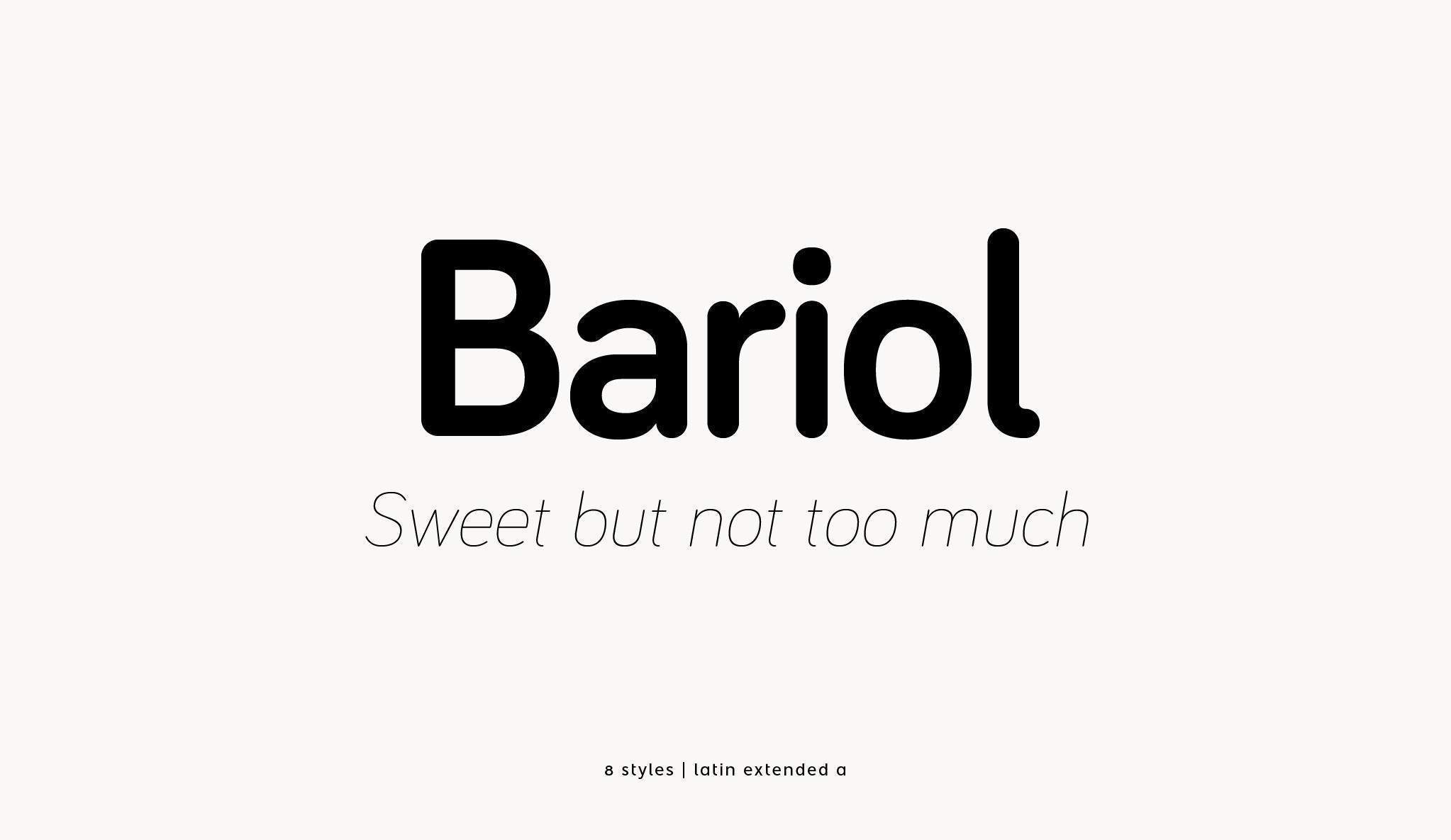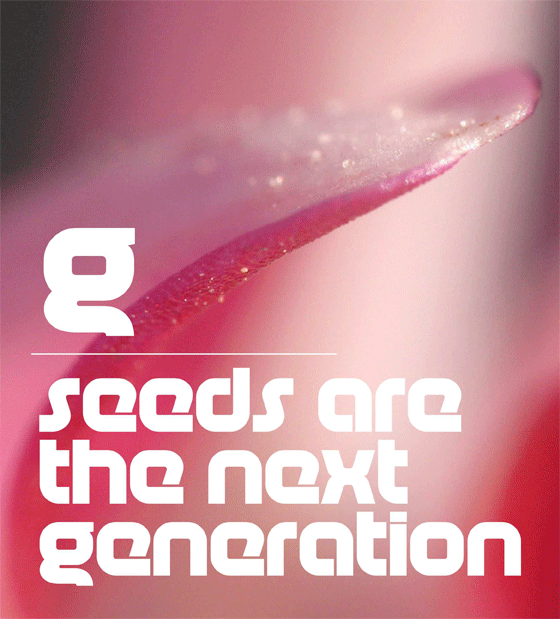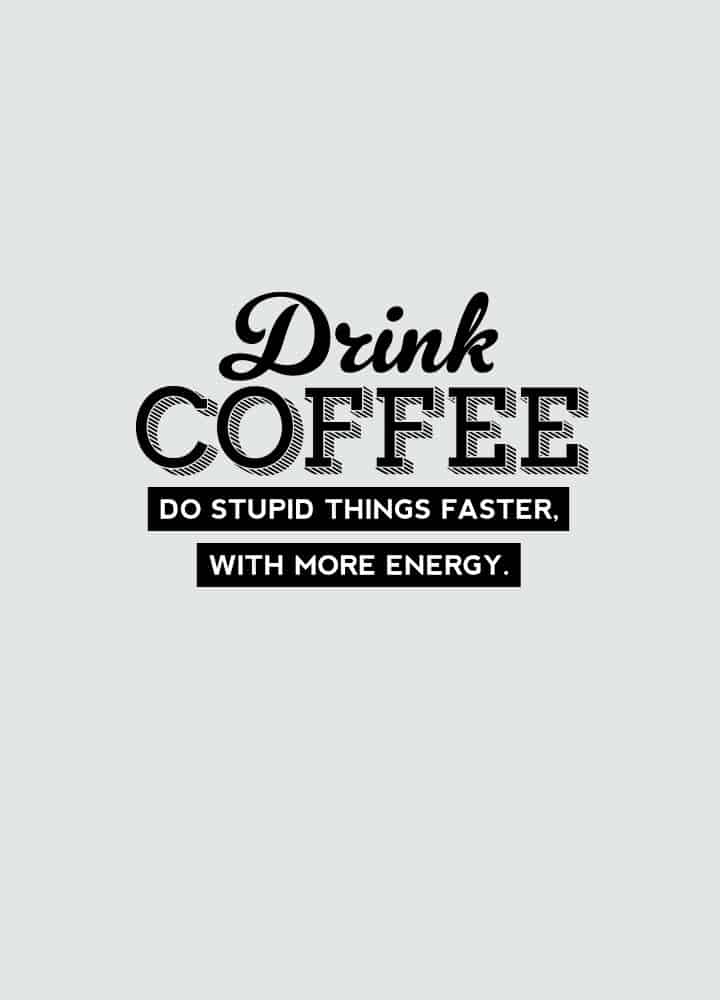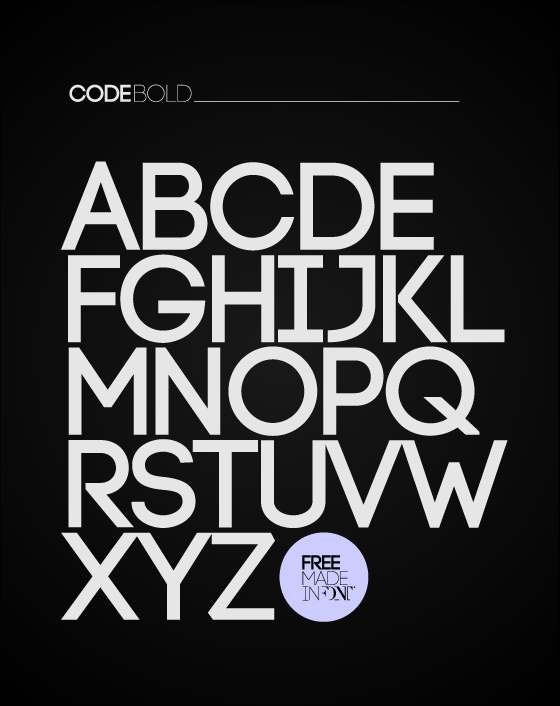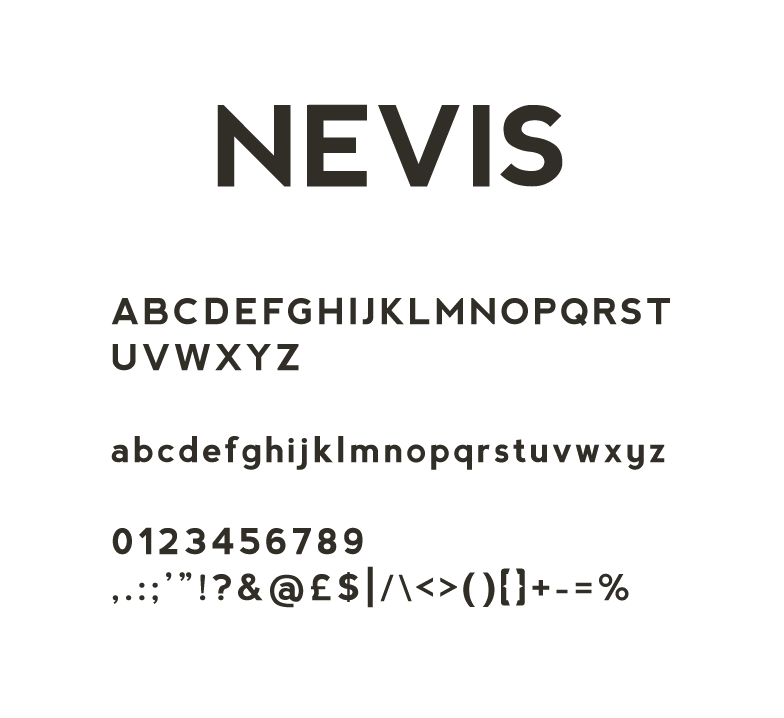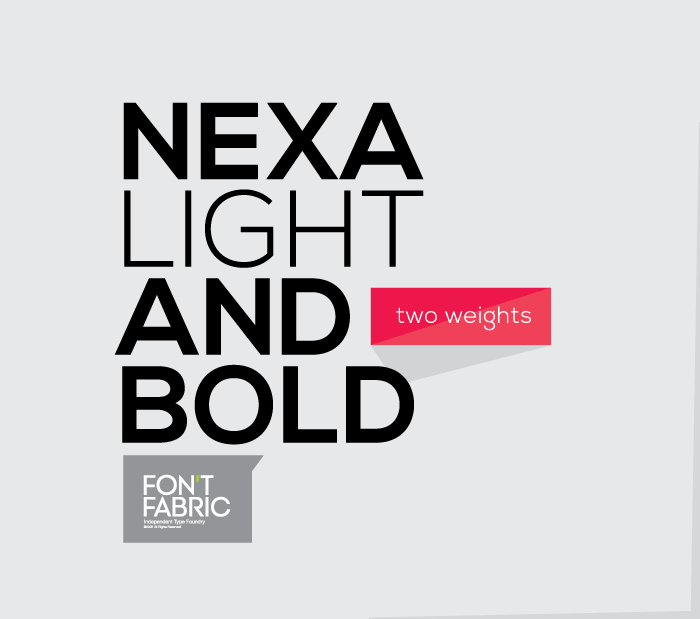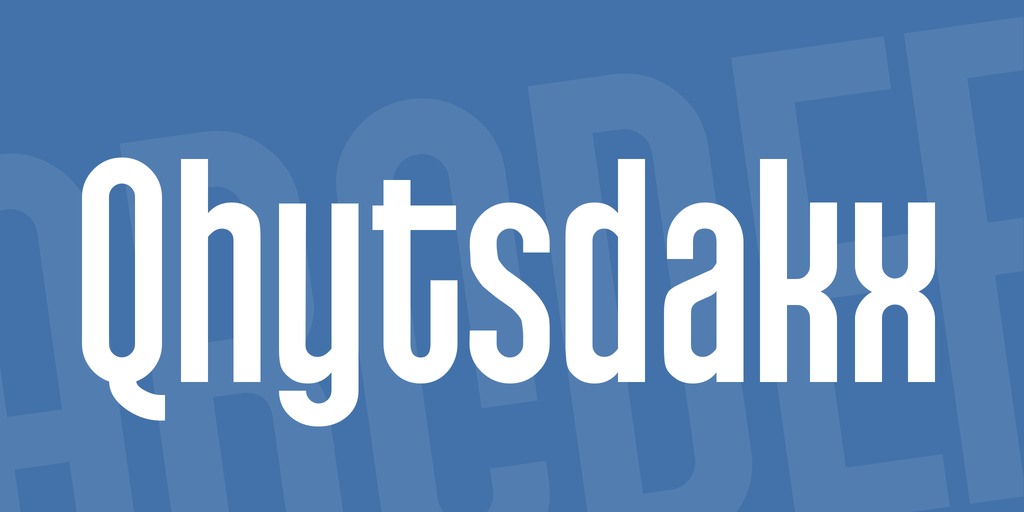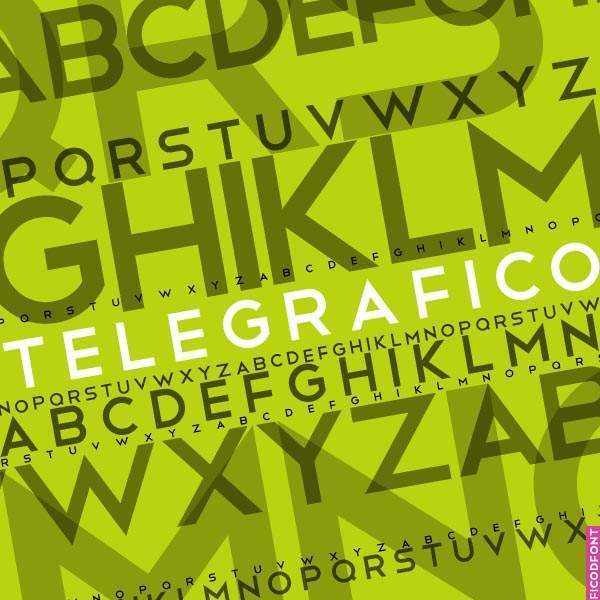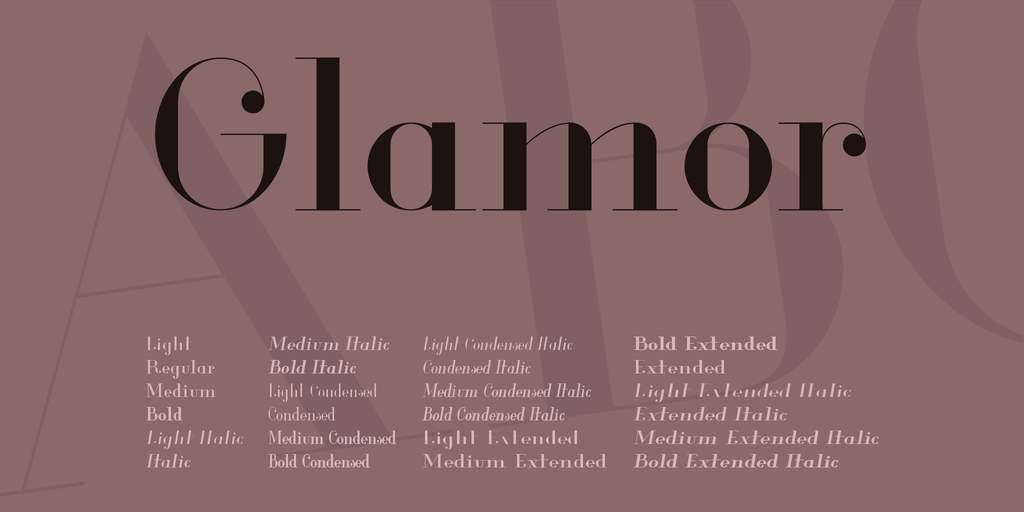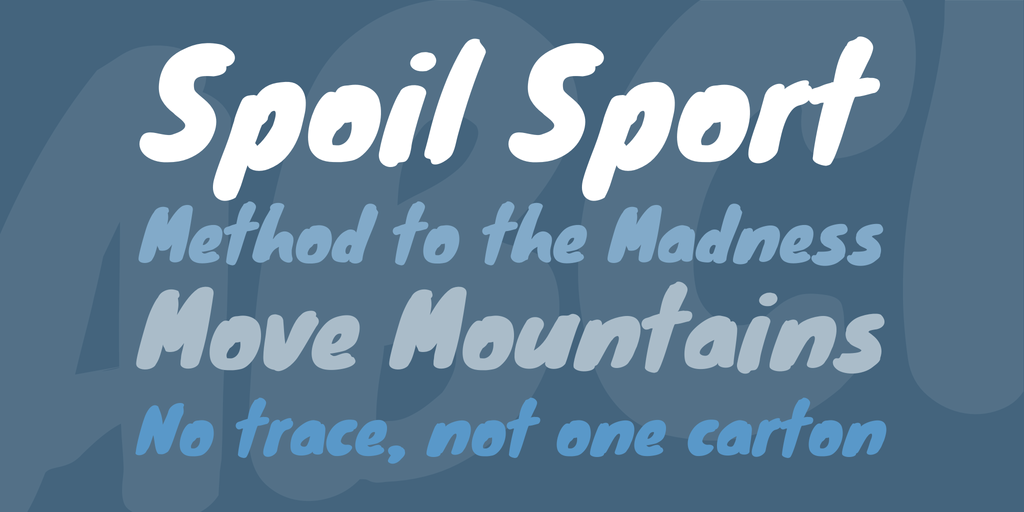
45 Free Headline Fonts to Make Your Designs Stand Out
Are you willing to take the risk with a headline that doesn’t grab attention instantly? Weak headlines can significantly reduce the impact of your design — no matter how great the rest of the content is.
A poorly chosen headline font can make even the best design go unnoticed. In today’s competitive visual landscape, your headline needs to work hard to capture attention and communicate your message clearly.
Ask yourself:
– Does my headline stand out?
– Is my font choice bold, readable, and aligned with the overall tone?
Choosing the right font for your headings isn’t just about style — it’s about getting noticed.
But let’s be honest — finding the perfect headline font isn’t easy.
That’s why we’ve put together a handpicked collection of the most powerful and eye-catching free fonts for headlines. Each font in this list is designed to elevate your creative work and grab your audience’s attention — and best of all, they’re absolutely FREE to download and use.
1. Adam.CG Pro font
Adam is a sans serif font inspired by Futura, great for eye-catching headlines. Its clean appearance, make it great, decorative, sophisticated subheadings.
2. Zebrazil Font
Zebrazil is a beautiful, delicate font. The high lines, subtle accents, and thin serifs give it an elegant, but also modern look. It’s really eye-catching, and great for more upscale, extravagant work.
3. Anson Font
Anson, inspired by the British twin-engine Avro Anson, is a sans serif typeface great for drawing attention to headlines. It is clean, but has a subtle softness in the roundness of some letters, and the cutouts of lowercase letters replicate a subtle serif. This allows Anson to fulfill the role of a sans serif typeface, but with a little more personality.
4. Promesh Font
Promesh is a bold, sporty typeface. The disturbing, inspired texture of the mesh within the letters gives it a unique touch. This would be great for sports promotions. This font even has a second version, free of the mesh, in case the texture becomes too overwhelming.
5. Calendas Plus Font
Calendas Plus is a beautiful, elegant header. It adds amazing detail and calligraphic flair to your work, while remaining readable and not forced.
6. Summit Font
Summit is a sans serif font . The layering variations of different styles give a nostalgic look, but still manages to be modern. It can be used for subtle headlines.
7. Building Font
Building is a sans serif typeface created by Leonardo Gubbioni. It was created in the style of the Art Deco movement and draws on the use of metals in the architecture of the time. It feels strong and bold, and captures attention in a calm manner.
8. Peyo Font
Peyo is a sans serif font that is fun and playful. It’s geometric but still rounded, which only encourages levity. And that’s what makes it so special and exciting.
9. Glamor Font
Glamour – это современное, элегантное и шикарное семейство шрифтов. Он действительно имеет множество вариантов использования, в том числе 24 разных шрифта от светлого до жирного. Эти шрифты идеально подходят для чего-то в индустрии моды или красоты, поскольку они действительно излучают элегантность.
10. Franchise Font
Franchise is a bold, clean and easy to read typeface. It grabs attention with its subtle details and emits a sense of energy and power – making it great for headlines. Its height increases its strength, while the thin spaces between the letters keep it compact.
11. Gabo Font
Gabo is a thick sans serif font perfect for bold headlines. The subtle slants and shifts within the letters, particularly the “G”, give this font a unique touch. This combined with the thin slits in the lowercase letters really makes this font something special.
12. League Gothic Font
League Gothic is an updated version of Alternate Gothic #1, and is a sans serif font. It’s subtle, but still weighty features help make it different from other sans serif fonts that are similar. It is expanded, italicized, and compressed to help create dimension in your designs.
13. Ostrich Sans Font
Ostrich Sans is a beautiful sans serif font with lots of suggestions. It has several styles including dotted, rounded, ultra light, normal, bold, black, inline and heavy – allowing you to use the same font in different ways to draw attention to your headlines.
14. Junction Font
Junction is a humanistic sans serif font. The interesting curve in the lower case “u” and “n” adds a unique contrast to the overall roundness of the letters and serves to separate it from other sans serif fonts.
15. Blackout Font
Blackout is an interesting sans serif font based on newspaper headlines. Holes that you would normally find, such as inside a “B” for example, have been filled in. This gives the font a somewhat unsettling, confrontational feel that really grabs attention.